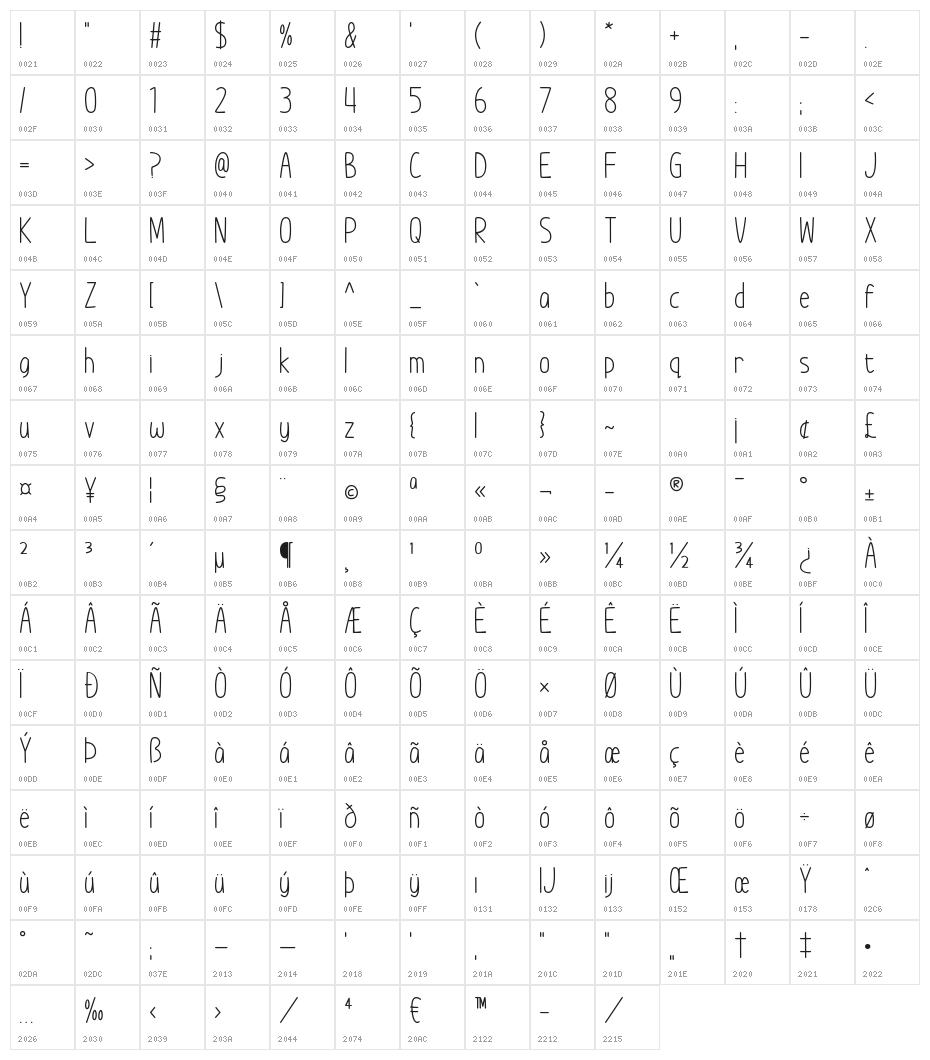
Im Wunderland Spaced Out Font
Im Wunderland Spaced Out Description
This font features a playful and whimsical style with tall, narrow letters that have a hand-drawn appearance. The characters are evenly spaced, contributing to a clean and airy look. The strokes are consistent in width, giving it a uniform appearance. The rounded edges and slightly irregular lines add a friendly and approachable feel, making it suitable for informal and creative projects. The font includes a full set of uppercase and lowercase letters, numerals, and a variety of punctuation marks and special characters.
| Proposed Projects | Ideal for children's books, greeting cards, playful branding, and creative posters. |